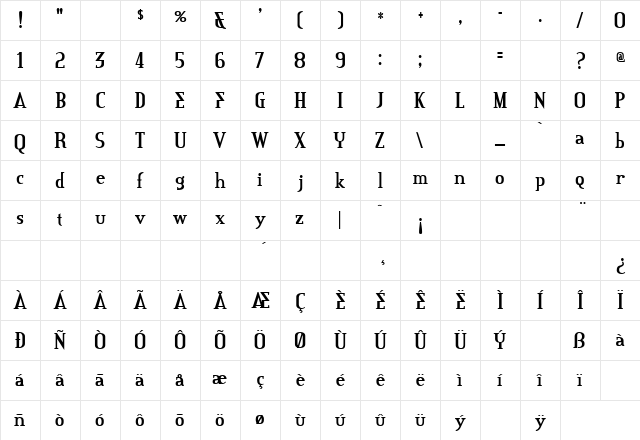
Credit River Regular Free Font
Credit River Regular
Foundry: Larabie Fonts
Credit River Family
Credit River Regular
Design Context for Credit River
Credit River is a composed and adaptable typeface that performs quietly and consistently across a wide range of design contexts.